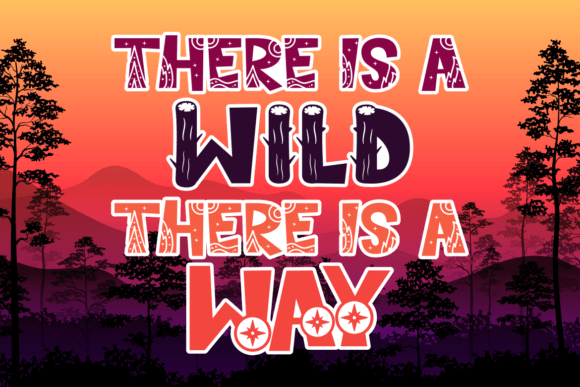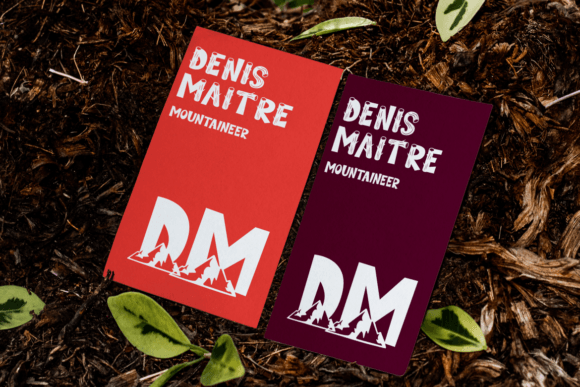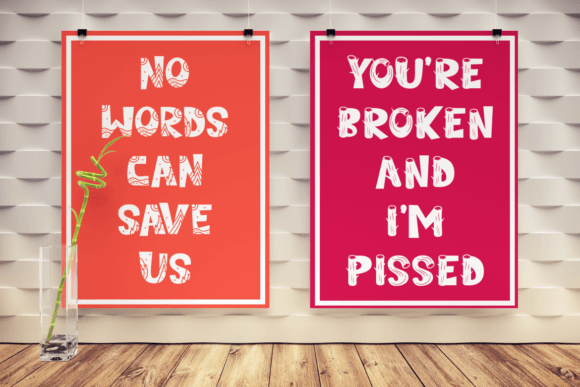
Cedar Heaven Font
Introducing Cedar Heaven – Wild Forest Display Font, a playful and adventurous typeface that encapsulates the spirit of the wilderness and outdoor exploration. This font is meticulously crafted, embodying elements of nature, adventure, and childhood wonder. With eight distinct variations tailored to fit its thematic design, Cedar Heaven is versatile and adaptable.Whether you’re branding an outdoor equipment store or designing invitations for a woodland-themed event, this font elevates your design with its unique character. The letters are imbued with elements of the forest, camping, and playful adventures making it perfect for children’s books, crafters’ creations or any project echoing the call of the wild.Cedar Heaven comes in both OTF and TTF file formats ensuring compatibility and ease of use across various platforms and software. It stands out in logos, branding materials, posters titles or packaging with its distinctive charm linking nature and typography seamlessly.